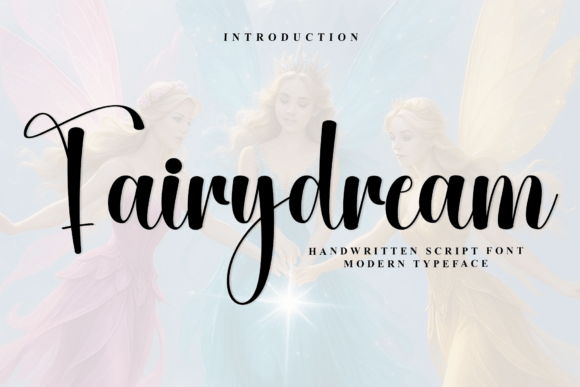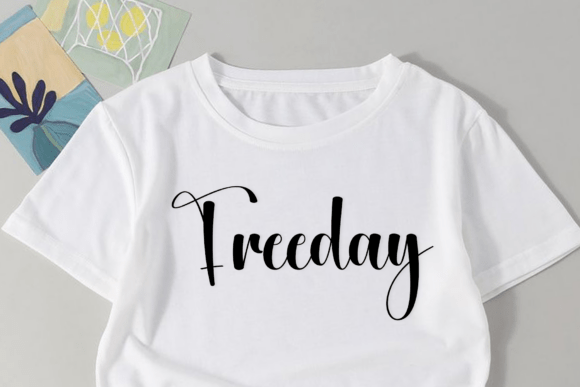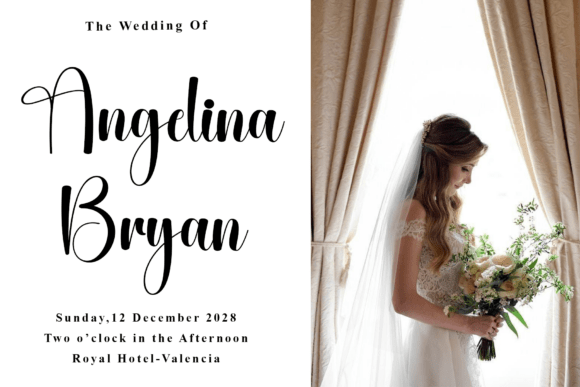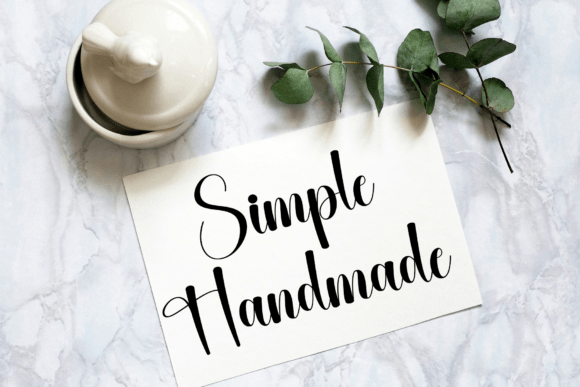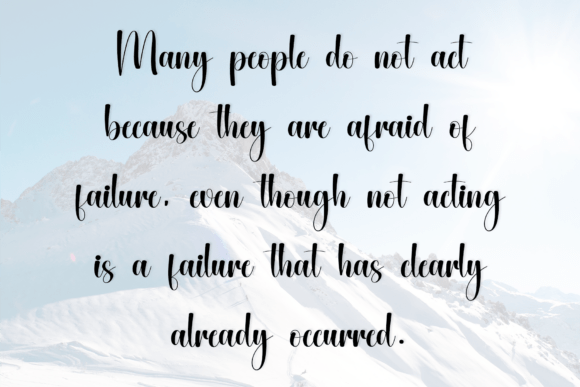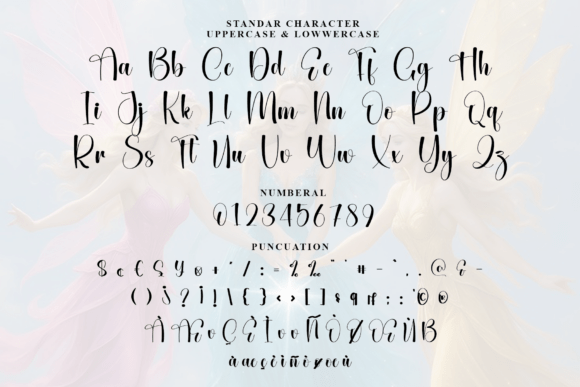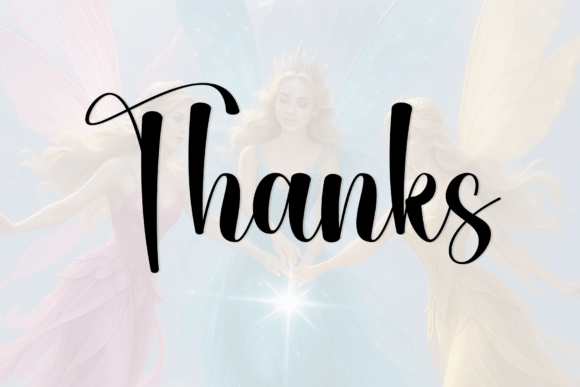
Finding Inspiration in the Art of Typography
As creatives, we’ve all been there – staring at a blank page, waiting for that spark of inspiration to strike. For some, it’s the sound of a guitar riff, while for others, it’s the feel of a brush stroke on canvas. For me, it’s the gentle curves of a handwritten font, like the elegant lines of the Fairy Dream Font.
Developed to evoke the essence of a modern, sophisticated typeface, Fairy Dream Font is a masterclass in elegance and refinement. Its high-contrast strokes, sweeping loops, and fine terminals create a natural, handwritten flow that’s simply irresistible. Whether you’re crafting luxury wedding stationery or high-end editorial signatures, this font is a valuable asset in your design toolkit.
With its expansive horizontal presence and delicate connections between characters, Fairy Dream Font offers a high-end, personalized aesthetic that’s sure to elevate any design project.
Fairy Dream Font Key Features
- Font Family: Fairy Dream Font is a beautiful, cursive font family designed to evoke a sense of whimsy and fantasy.
- Character Count: The font family includes over 200 characters, including uppercase and lowercase letters, numbers, and special characters.
- Size and Resolution: Designed to be scalable, the font can be used at various sizes and resolutions, from small text to large headings, without losing its clarity and charm.
- Unique Characteristics: Fairy Dream Font features intricate, swirling lines and elegant curves, giving it a dreamy, ethereal quality that’s perfect for fantasy, romance, and children’s book designs.
Fairy Dream Font Review
I was really excited to dive into the Fairy Dream Font, and overall, I think it’s a beautiful choice for any whimsical project ✨. The font’s flowing script and delicate lines evoke a sense of magic and wonder, making it perfect for fairy-inspired designs, children’s books, or even wedding invitations.
Some of the things that work well in this font include:
- The unique, flowing script that adds a touch of personality to any text ✨
- The delicate lines that make the font feel almost hand-drawn ✨
- The font’s versatility, which makes it suitable for a wide range of projects ✨
However, I do have a few concerns about the font’s limitations:
- The font may not be the best choice for body text, as it can be difficult to read in smaller sizes ⚠️
- The font’s complexity may make it tricky to use in conjunction with other fonts ⚠️
- The font may not be suitable for all audiences, particularly those who prefer more modern or minimalist designs ⚠️
Overall, I think the Fairy Dream Font is a lovely choice for designers who want to add a touch of magic to their projects. While it may have some limitations, I think the benefits far outweigh the drawbacks.
Tips for Getting the Most Out of Fairy Dream Font
To get the most out of Fairy Dream Font, try the following:
- Use it in combination with other whimsical elements, such as illustrations or graphics, to create a cohesive and dreamy aesthetic.
- Experiment with different font sizes and colors to achieve the desired level of whimsy and fantasy.
- Use Fairy Dream Font in titles, headings, and captions to add a touch of magic to your design.
Alternatives to Fairy Dream Font